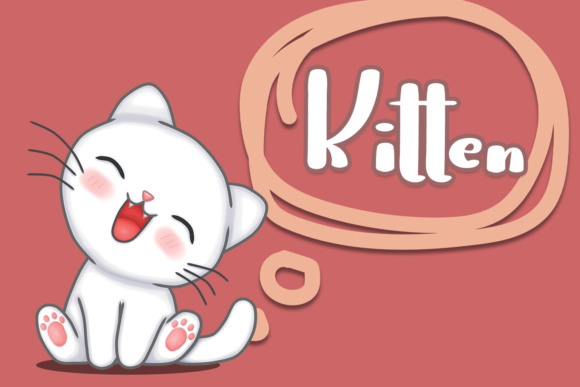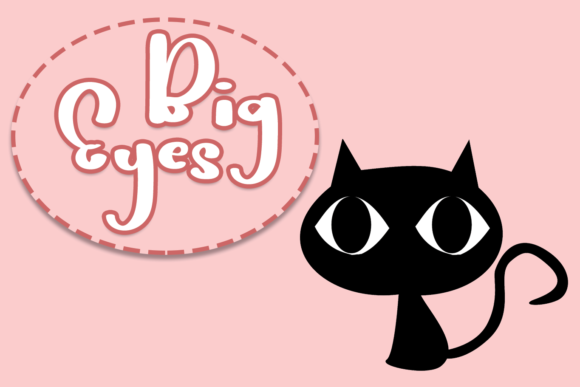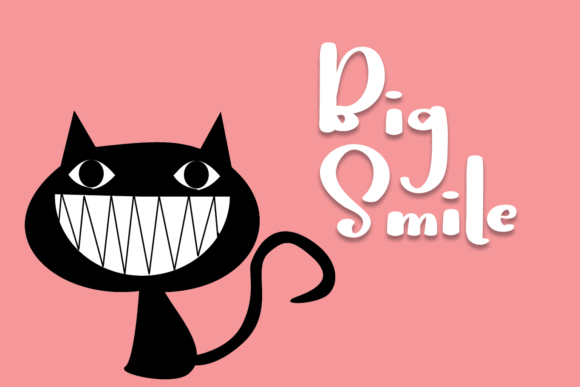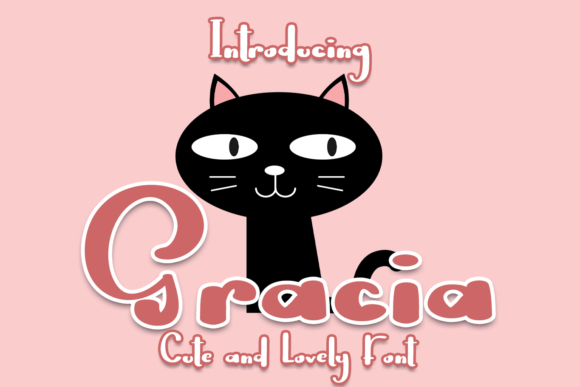
Introduction to Gracia Font
Gracia is a cute display font.
Clean and a little bit quirky, this font is the perfect fit for all of your logos, branding, social media, and crafty DIY projects .